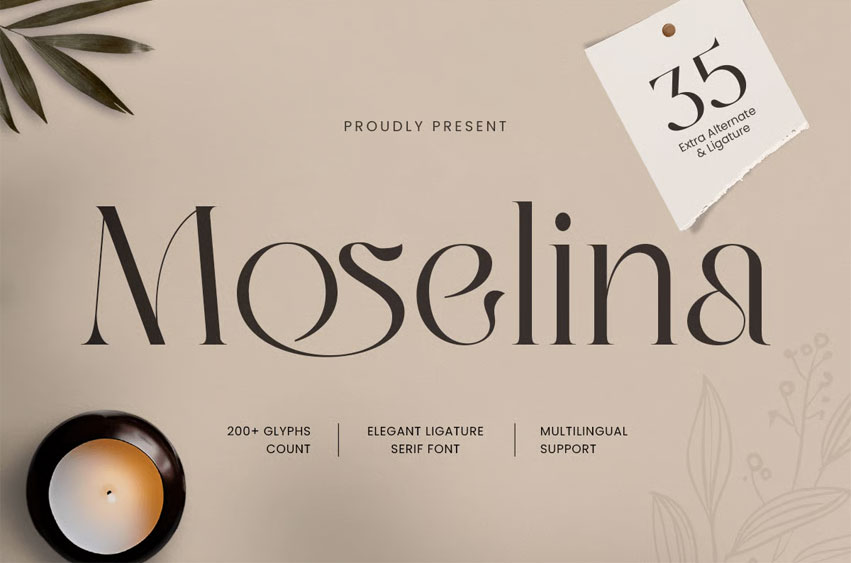
Moselina Font
Moselina Font is an elegant ligature serif font crafted to deliver a refined, premium tone with a distinctive signature flow. Built with graceful serif structure and carefully designed ligatures, this typeface creates a sophisticated rhythm that feels luxurious, modern, and perfectly suited for high-end branding.
Designed for brand-focused typography, Moselina performs beautifully across logos, wordmarks, packaging, labels, website headers, editorials, invitations, signage, and social media campaigns. The ligatures add a bespoke touch that makes logotypes feel more custom, polished, and upscale—while the serif foundation keeps everything timeless and readable in both print and digital layouts.
Whether you’re building a fashion identity, elevating a beauty brand, designing luxury packaging, or creating wedding stationery with a premium feel, Moselina provides an elegant ligature serif foundation that makes every layout look curated, confident, and unforgettable.
Inspiration Behind Moselina
Moselina is inspired by luxury editorial typography and boutique identity design—where refined serifs and subtle letter connections create a tailored, high-end signature. The design focuses on elegant ligature flow, balanced spacing, and premium presence to support sophisticated branding and modern classic visuals.
Moselina Font Features:
• Elegant ligature serif letterforms optimized for logo and wordmark design
• Refined structure with classy, premium character
• Stylish ligatures for a custom, boutique signature feel
• High readability for headlines, branding, and editorial layouts
• OpenType features for polished professional typesetting
• Logos, wordmarks, and premium brand identity systems
• Fashion, beauty, skincare, fragrance, and boutique branding
• Editorial layouts, magazine covers, lookbooks, and headlines
• Luxury packaging, labels, invitations, and wedding stationery
• Social media campaigns, websites, ads, and marketing assets